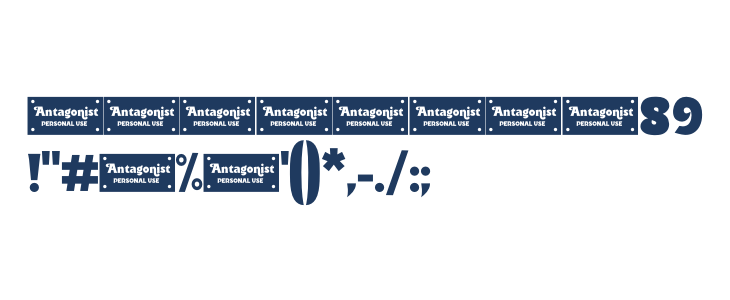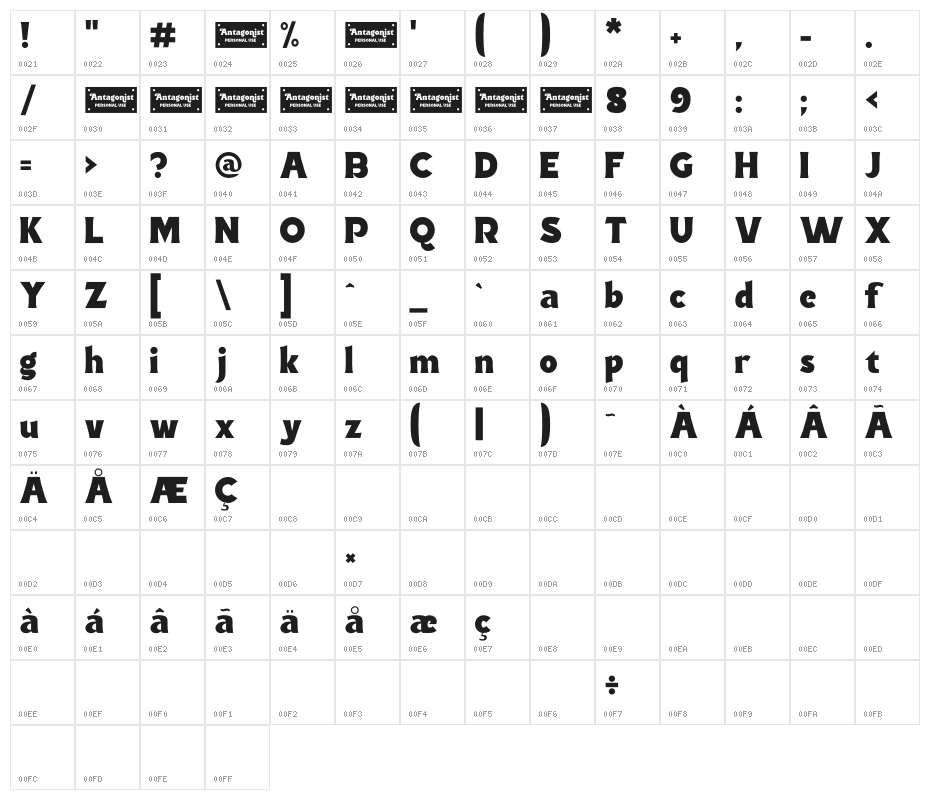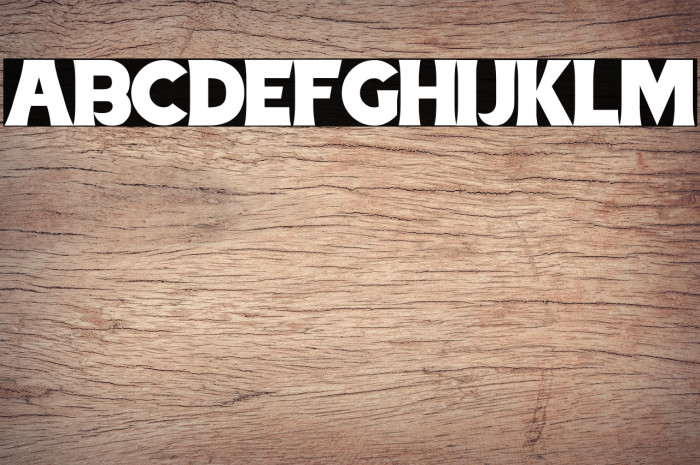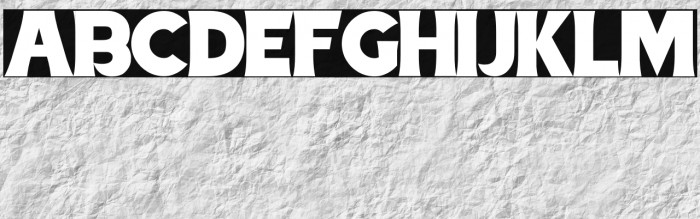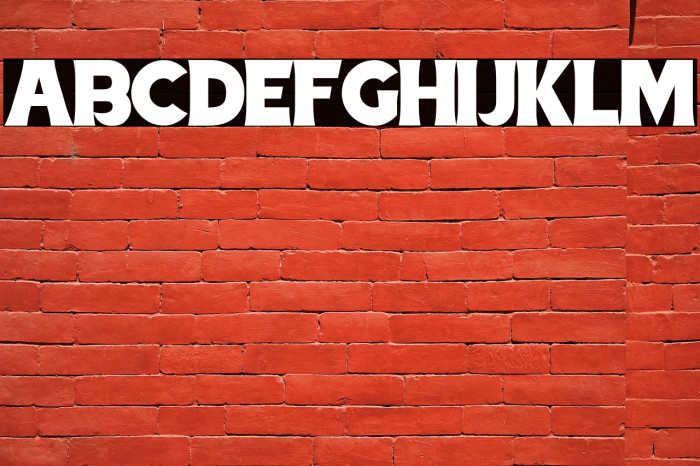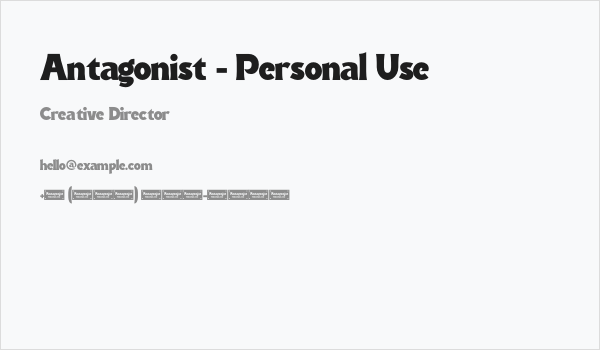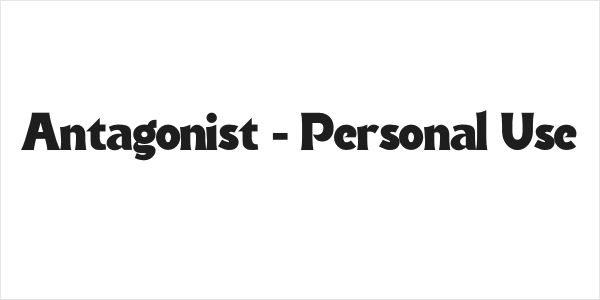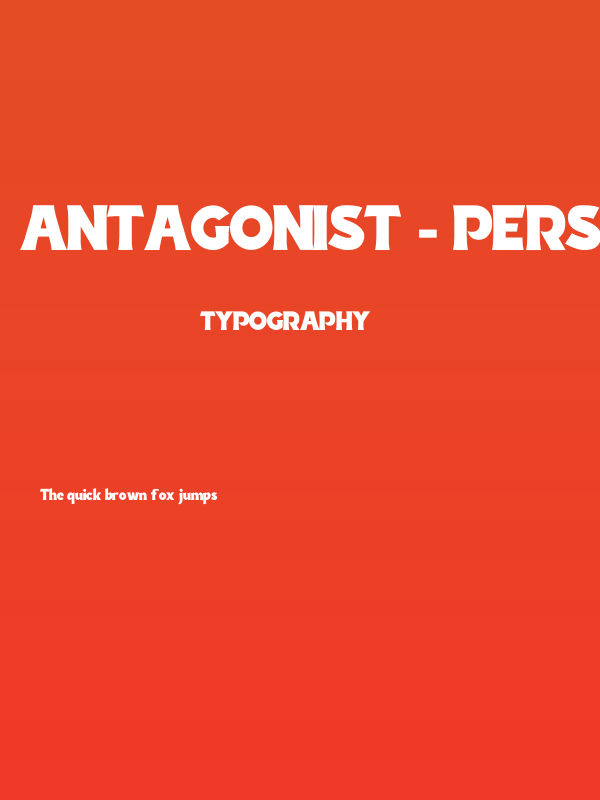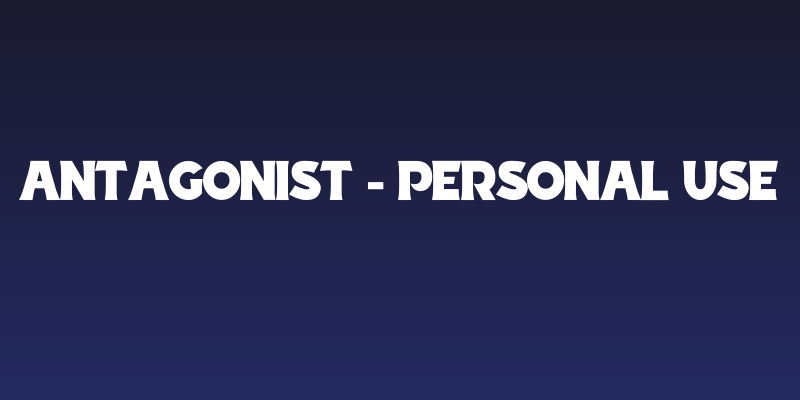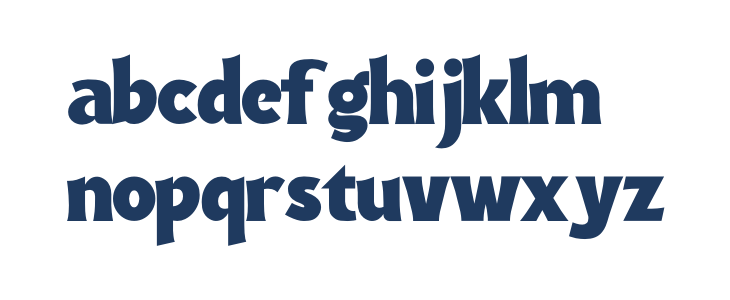
Antagonist - Personal Use Font
Antagonist - Personal Use Description
This font features bold, dramatic strokes with a strong presence, making it ideal for attention-grabbing headlines and titles. The uppercase letters are particularly striking, with a slight inward curve that adds a unique flair. The lowercase letters maintain a consistent style, offering a cohesive look across different text sizes. The numerals and special characters are equally bold, ensuring they stand out in any design. This font's distinct style is both modern and slightly retro, making it versatile for various creative projects.
| Proposed Projects | Ideal for posters, logos, branding materials, and any project requiring a strong visual impact. |